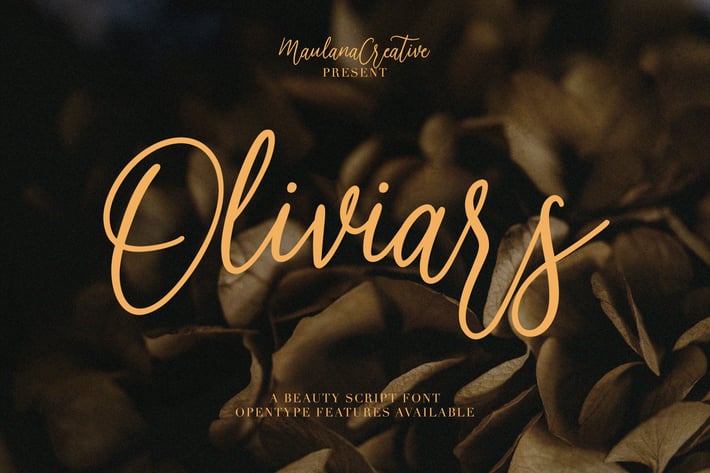
Oliviars Beauty Script Font
Give your designs an authentic handcrafted feel. Oliviars Beauty Script Font is perfectly suited to logo, stationery, branding, typography quotes, magazine or book cover, website header, clothing, branding, packaging design, restaurant and more.